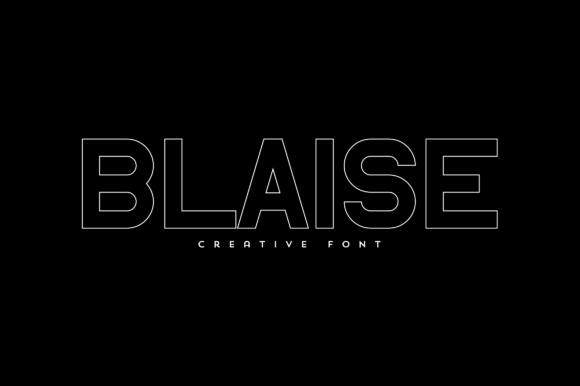
Blaise: The Font That Elevates Modern Typography
Typography is more than just arranging lettersâit's a form of visual storytelling. In an age where first impressions are made in seconds, the right font can make all the difference. Enter Blaise, a font that combines elegance with versatility to help your designs stand out. Whether you're crafting a brand identity, designing product packaging, or overlaying text on a striking image, Blaise offers a refined and unique aesthetic that resonates with todayâs design-conscious audience.
Elegance Meets Versatility in Every Stroke
Blaise is a serif font with subtle yet impactful character traits. Its clean lines and balanced proportions create a sense of sophistication without overwhelming the viewer. This makes it ideal for both digital and print media, from sleek logos to editorial layouts. Unlike many fonts that specialize in one areaâsuch as readability or artistic flairâBlaise manages to do both seamlessly.
The font features a harmonious blend of traditional serifs and modern spacing, which allows it to adapt effortlessly across various contexts. It doesnât demand attention but holds it, making it perfect for branding projects where subtlety is key. Whether used in bold statements or delicate scripts, Blaise maintains its grace, ensuring your message is conveyed with clarity and style.
Why Blaise Stands Out in a Sea of Fonts
In the world of typography, there are countless options available. But not all fonts deliver the same level of impact. Blaise distinguishes itself by offering a timeless look that feels both contemporary and classic. This duality is especially valuable in todayâs fast-paced creative landscape, where trends shift rapidly but lasting appeal remains essential.
- Unique Character Set: Blaise includes a wide range of glyphs, including alternate characters and ligatures, allowing for customization and personalization in your designs.
- Brand-Friendly Aesthetics: The fontâs neutral tone works well with minimalist and maximalist styles alike, making it a go-to choice for entrepreneurs and designers who want their brand to feel both polished and approachable.
Modern Trends and the Rise of Thoughtful Typography
Over the past decade, typography has evolved from being a background element to a central component of design. Users now expect more from visual contentânot just clarity, but emotional resonance. Fonts like Blaise have become increasingly popular because they offer the perfect balance between aesthetics and functionality.
Todayâs audiences are visually literate. They notice when a brand uses a generic font versus something distinctive. Blaise helps you avoid the former by adding a layer of personality to your work. Whether it's for a startup launching a new app or a boutique creating custom home dĂ©cor, the use of a unique font can set your project apart in a crowded market.
This shift is also reflected in how businesses operate. Marketing teams are placing greater emphasis on visual consistency, and typography plays a vital role in this. Blaise supports this trend by providing a cohesive look across multiple platformsâsocial media, websites, printed materials, and beyondâwithout compromising legibility or style.
Real-World Applications of Blaise
Letâs explore some practical scenarios where Blaise shines:
- Logo Design: Many brands struggle to find a font that reflects their values while remaining memorable. Blaise offers a refined appearance that complements luxury and lifestyle brands alike. For example, a skincare company might use Blaise in its logo to evoke a sense of calm and trustworthiness.
- Magazine and Editorial Work: In print and online publications, the right font enhances readability and reader engagement. Blaiseâs elegant structure makes it suitable for magazine headers and subheadings, where it adds a touch of class without distracting from the content.
- Product Packaging: From artisanal food labels to fashion accessories, Blaise can elevate the visual appeal of any package. Its versatility allows it to be used in small, intricate details or large, bold statements depending on the productâs positioning.
- Home-Ware Designs: Interior designers and DIY enthusiasts often seek fonts that feel both stylish and inviting. Blaise fits the bill perfectly for items like throw pillows, wall art, or mugs where text serves as part of the overall design.
- Web Overlays and Social Media: As a text overlay, Blaise blends beautifully with photography and video backgrounds. Its contrast and weight variations allow it to remain legible while enhancing the visual narrative of your content.
Whether youâre working on a high-end branding campaign or a casual blog post, Blaise brings a level of sophistication that enhances your message without overshadowing it. As design trends continue to evolve, fonts like Blaise remind us that sometimes, the simplest choices can make the biggest impact.